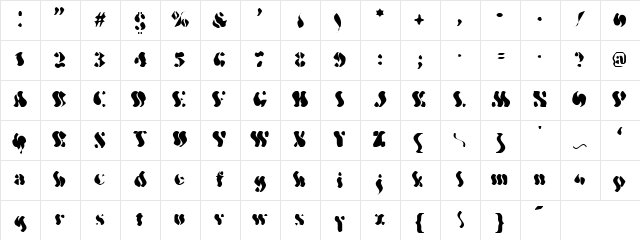
Wavy Optickal Regular
Version: 1.00 of this wavy techno-trippy font
Design Context for Wavy Optickal
Wavy Optickal is a composed and adaptable typeface that performs quietly and consistently across a wide range of design contexts.